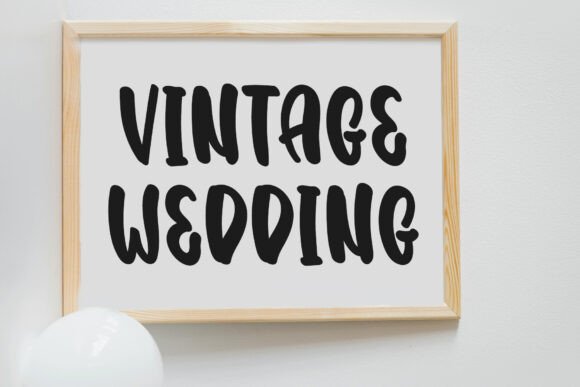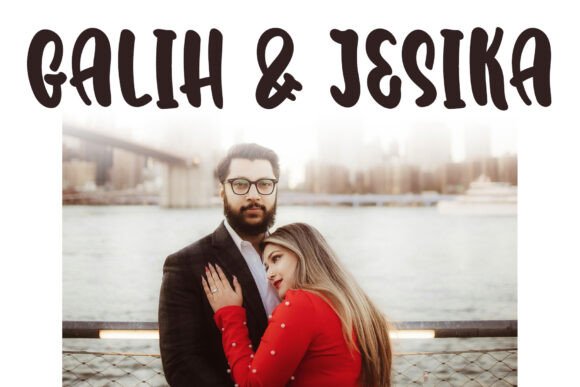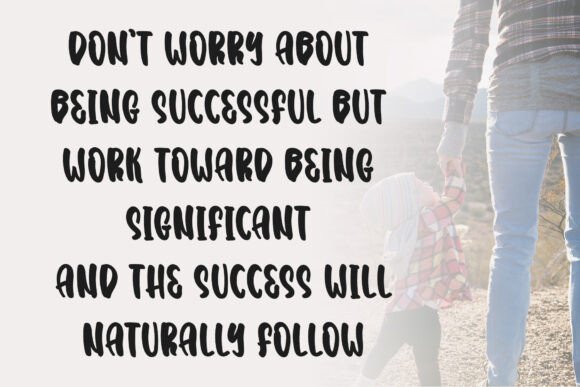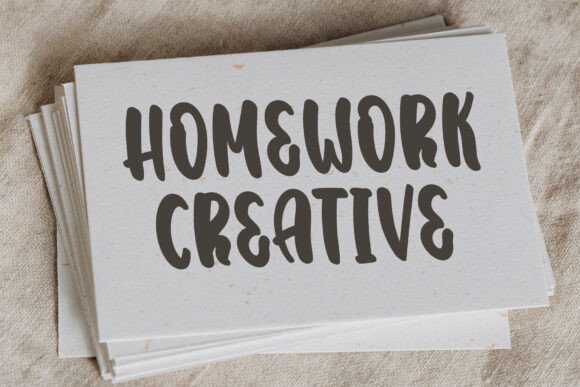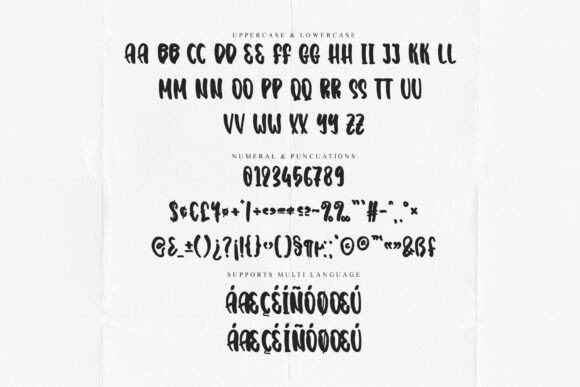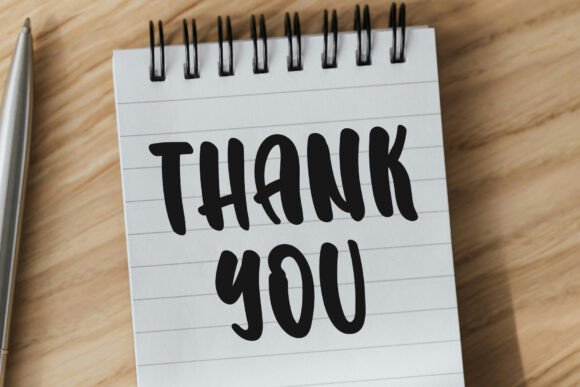
Introduction to Over Point Font
Remember the moment when you finally land on the perfect design element, and it instantly elevates your entire project? For designers, that moment is priceless. Today, we’re thrilled to introduce you to the Over Point Font – a vibrant, high-energy display font that’s about to become your go-to design resource. With its quirky curves and dynamic personality, this Modern Display Font is perfect for headlines, logos, posters, and any design that dares to stand out.
Whether you’re working on a creative project, designing a bold magazine cover, or crafting a trendy streetwear logo, the Over Point Font delivers the perfect mix of playfulness and modern edge. Its high-quality design and transparent background make it an ideal choice for branding, social media, and editorial projects. And the best part? You can download it for free, giving you the freedom to experiment and unleash your creativity without any limitations.
Key Features of Over Point Font
- Unique, creative design perfect for various projects and designs
- Designed for use in creative projects, including logos, typography, and graphic designs
- Supports various languages and scripts for global design applications
Honest Review: Over Point Font
As a designer, I’m always on the lookout for high-quality design resources to elevate my creative projects. Recently, I stumbled upon the Over Point Font, and I’m excited to share my honest review with you.
- Unique and creative design: The Over Point Font boasts a distinctive and eye-catching style that’s perfect for making a statement in your design work.
- High-quality glyphs: The font includes a wide range of glyphs, from uppercase and lowercase letters to numbers and symbols, all of which are expertly crafted and display well on various devices.
- Not ideal for body text: While the Over Point Font is perfect for headings and titles, it may not be the best choice for body text due to its ornate and decorative nature.
- No language support for non-Latin scripts: If you need to use the font for languages that use non-Latin scripts, you may encounter some limitations.
Overall, I’m impressed with the Over Point Font’s unique design and high-quality glyphs. While it may not be suitable for all types of projects, it’s a great addition to any designer’s toolkit. Whether you’re working on a creative project or just need a distinctive font for a specific design, the Over Point Font is definitely worth considering.
How to Use Over Point Font
The Over Point Font is a high-quality, versatile font that can be used in a variety of creative projects. With its transparent background, it’s perfect for designers who want to add a touch of elegance to their designs.
The Over Point Font is perfect for:
- Packaging design